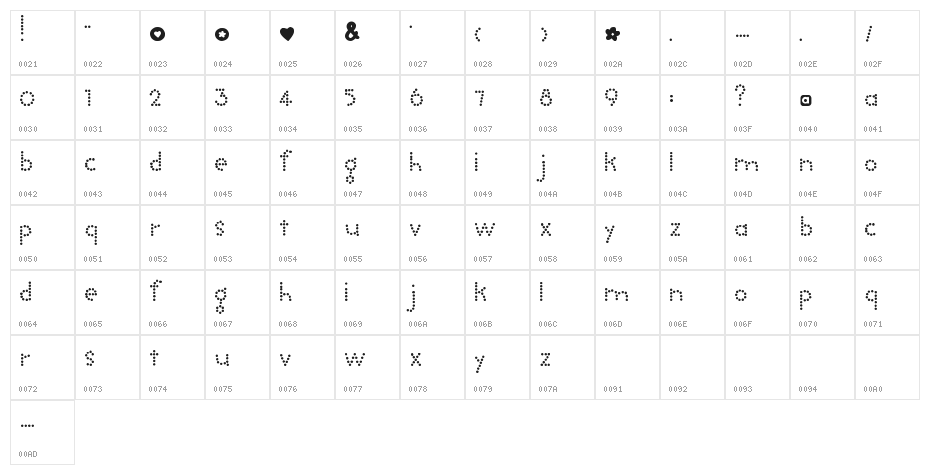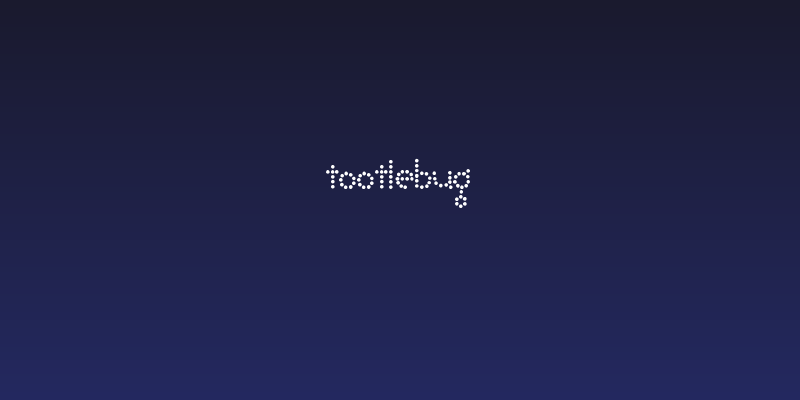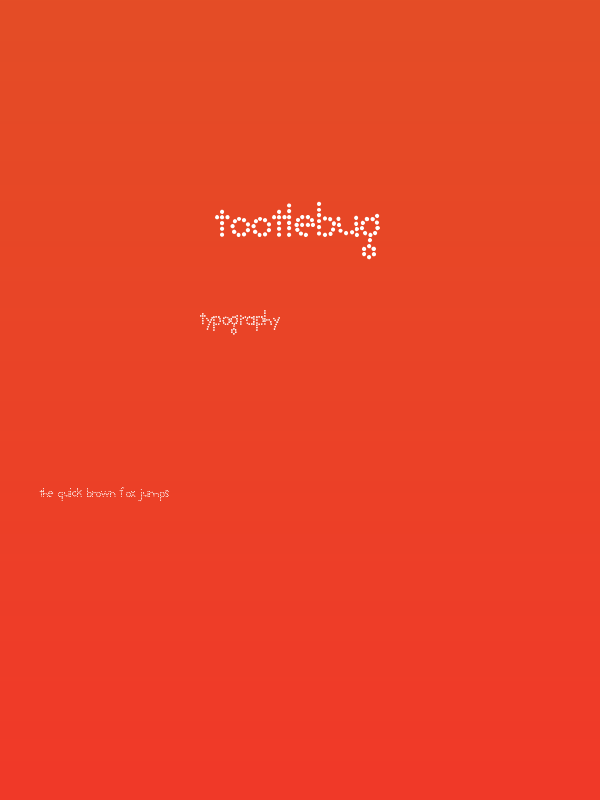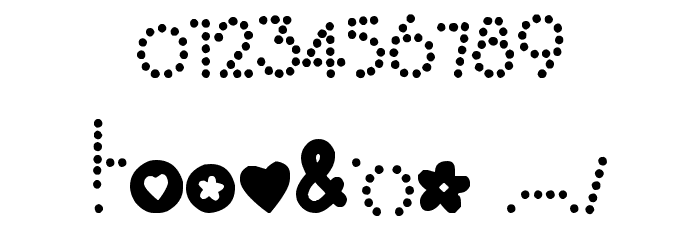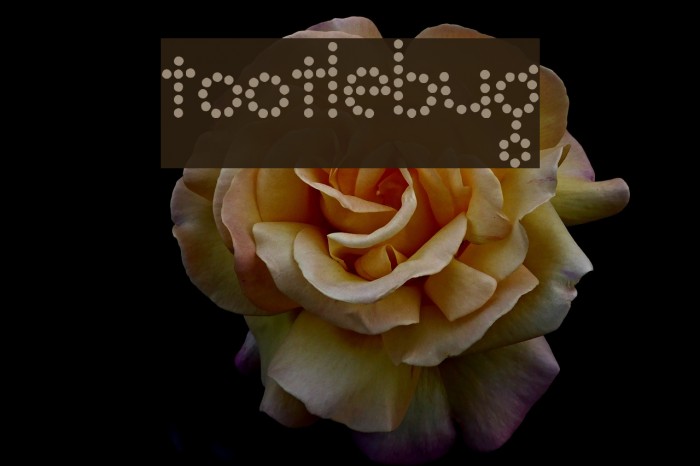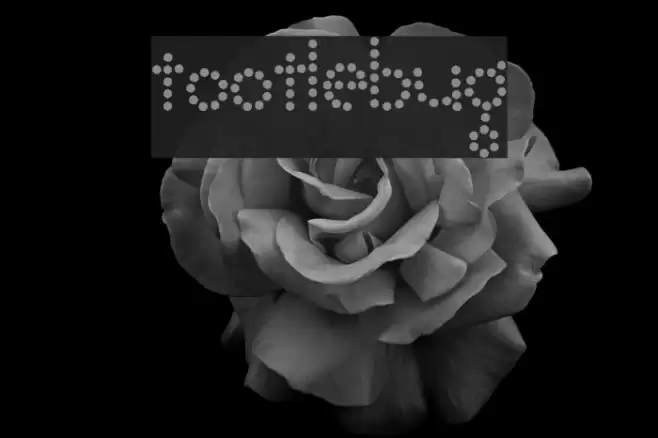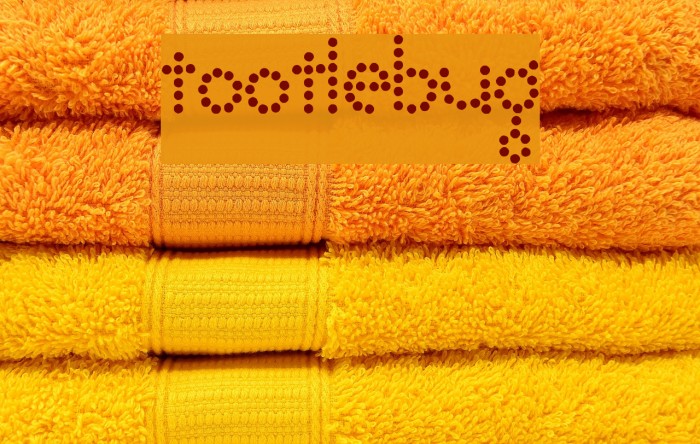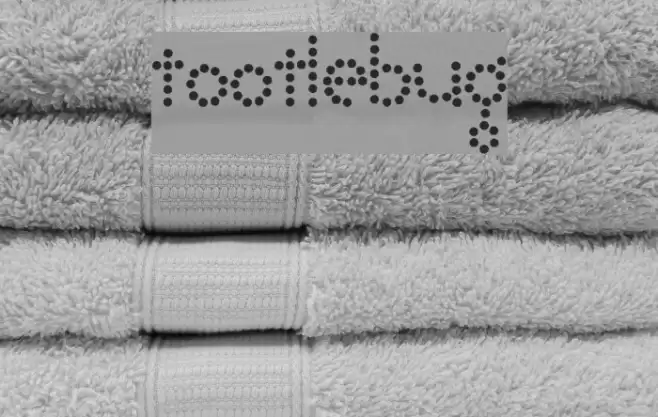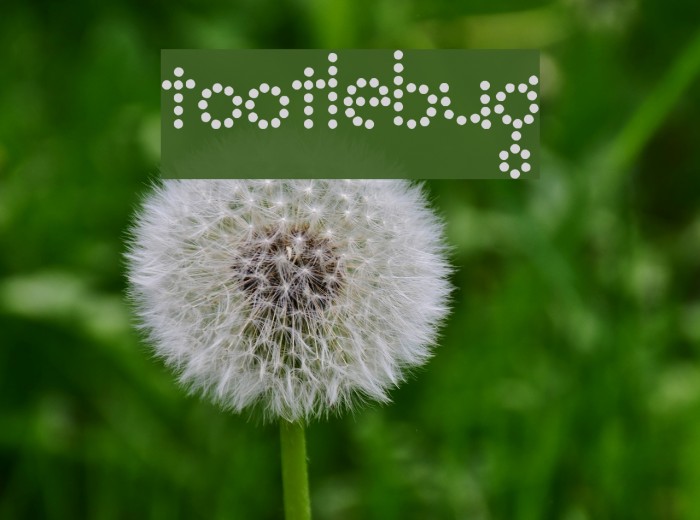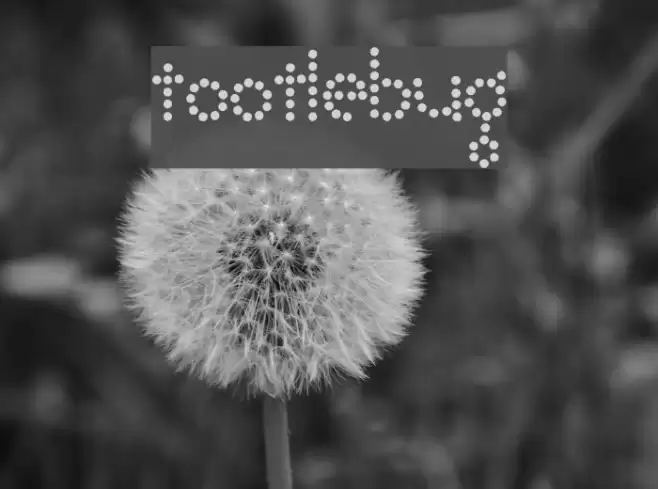
Tootlebug Font
Tootlebug Description
This playful and whimsical font is composed entirely of dots, creating a unique and eye-catching appearance. Each character is formed by a series of evenly spaced circular dots, giving it a bubbly and fun aesthetic. The font maintains a consistent size and shape for the dots, ensuring uniformity across all characters. Its design is reminiscent of a connect-the-dots puzzle, making it ideal for projects that require a lighthearted and informal touch. The font includes both uppercase and lowercase letters, numbers, and a selection of special characters, all adhering to the dotted theme. Its distinctive style makes it perfect for children's materials, party invitations, or any creative project that seeks to convey a sense of joy and playfulness.
| Overall Style | Playful, Whimsical |
| Use Case | Headlines, Logos, Creative projects |
| Proposed Projects | Ideal for children's books, party invitations, playful branding, and creative designs. |